Brand new decorative, unique, retro & creative style typography bundle with 14 multilingual display font families! Most of these fonts come with lot of alternate characters and ligatures so you can use it for any kind of modern style branding projects or T-shirt designs 😉
Decorative & Unique Display Fonts from Arterfak Project contains 14 multilingual display font families with 23 modern fonts for your new projects! Don’t miss this modern & fancy style font & branding bundle 😉
- 14 display font families with 23 decorative fonts for your new projects!
- Multilingual, alternates & ligatures + dingbat fonts in some sets
Creative display fonts for your new projects!
01. Rushen – Vintage Inspired from Arterfak Project
Presenting to you Rushen. A vintage display sans serif with 5 styles. Designed with a bold weight that is awesome to be used for many purposes such as headline, branding, logo, apparel, logotype, cards, labels, poster, packaging, and many more. These fonts are all-caps fonts complete with multilingual support. Be Bold with Rushen!
- Regular: The basic one, with sharp geometrical shapes, formal and elegant look. Good to apply in Books, newspapers, letterhead.
- Curvy: Inky inspired from the old-school advertising, can be combined with your favorite fonts. Perfect for labels, posters, and short editorial.
- Stencil: The most explored with some adjustments that look good for a manly theme, urban style, military themes, brave, and youth.
- Shadow: The complement from all, but still can be stand-alone for western design, old school, and food themes.
- Distressed: The vintage-inspired with the neat ink effect and minimal anchor points to keep font still ergonomic.
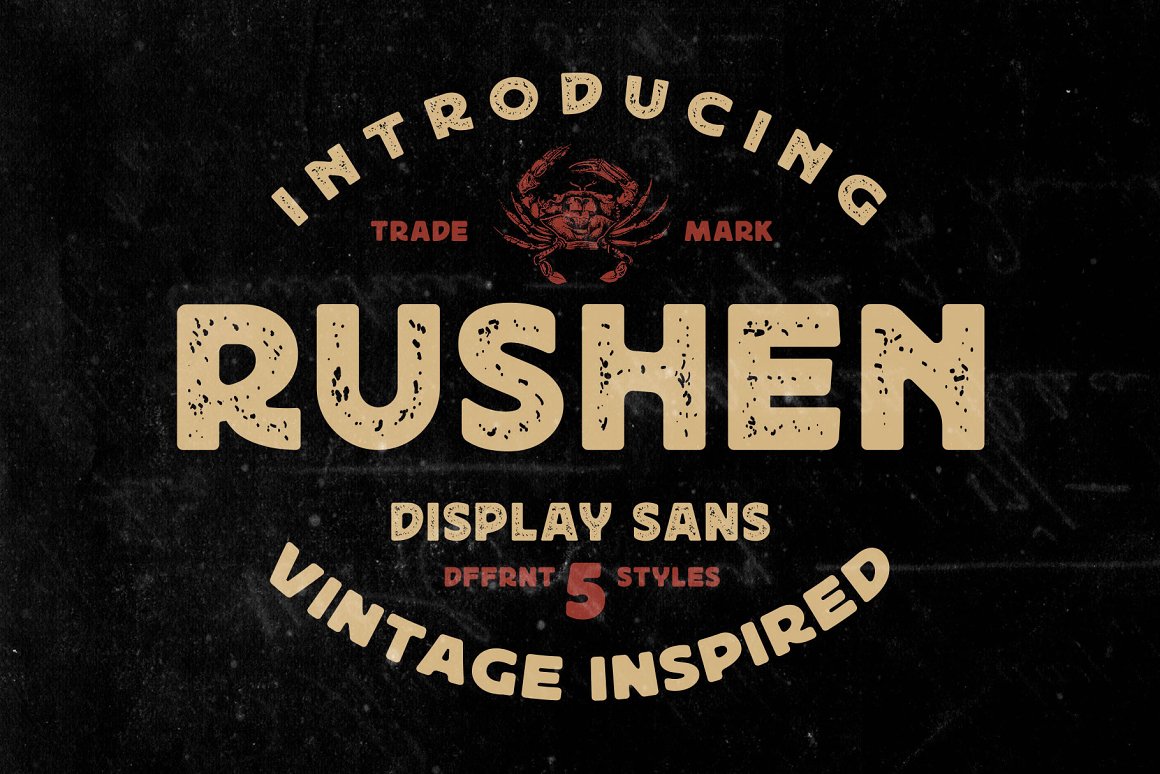
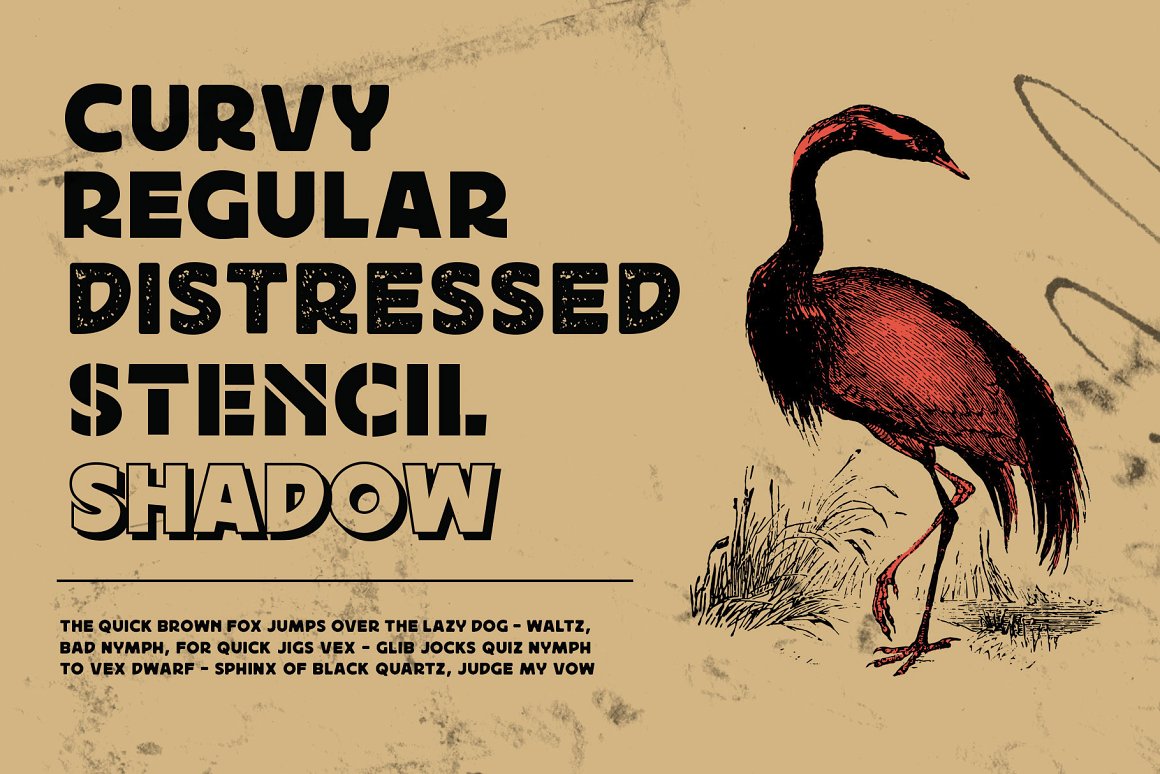
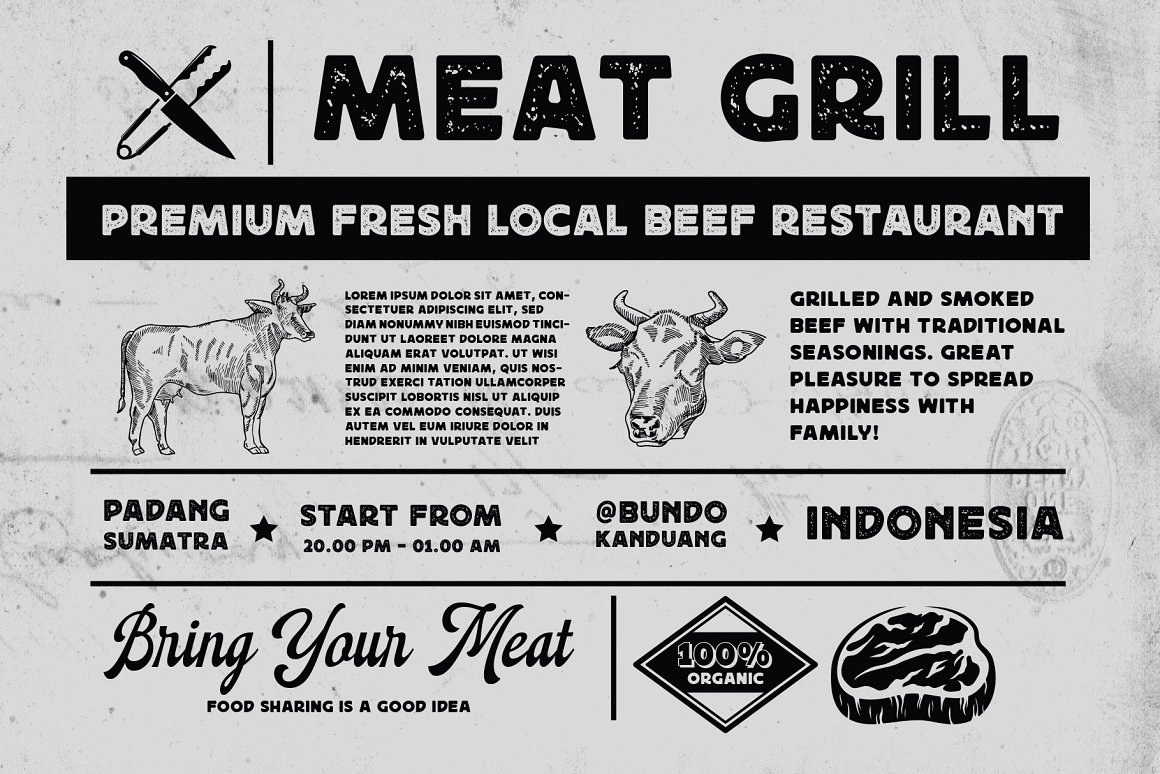
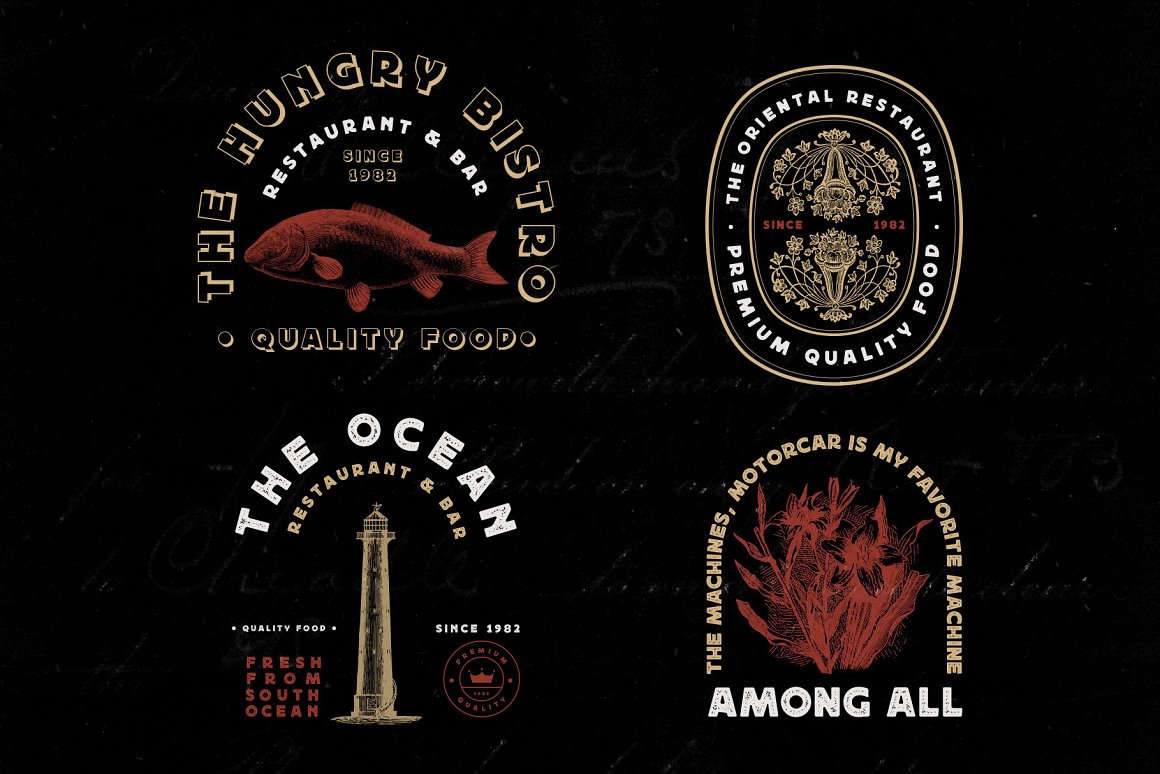
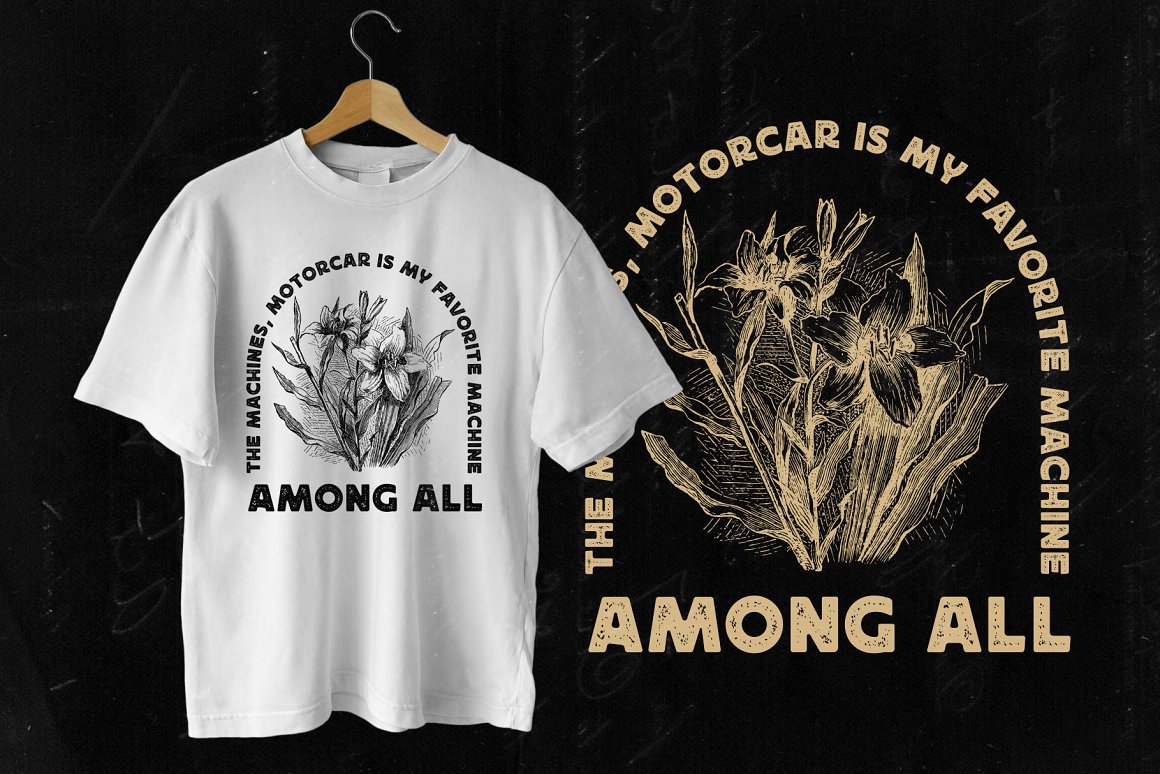
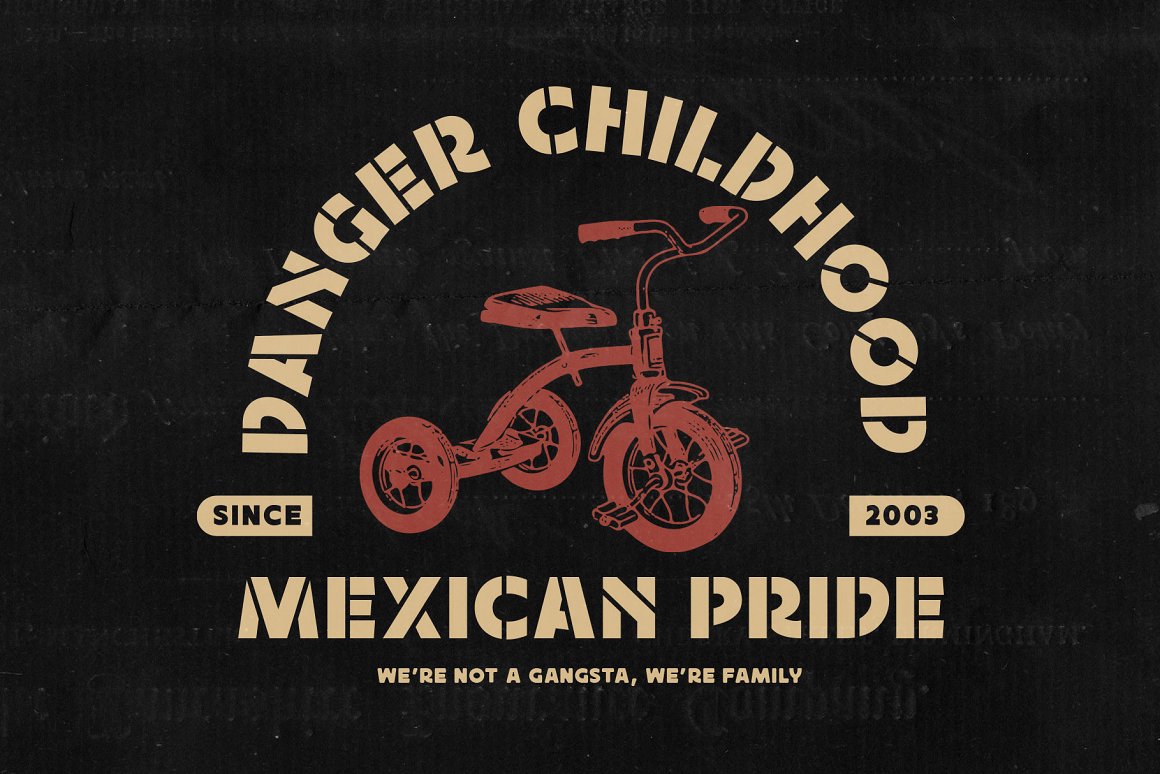
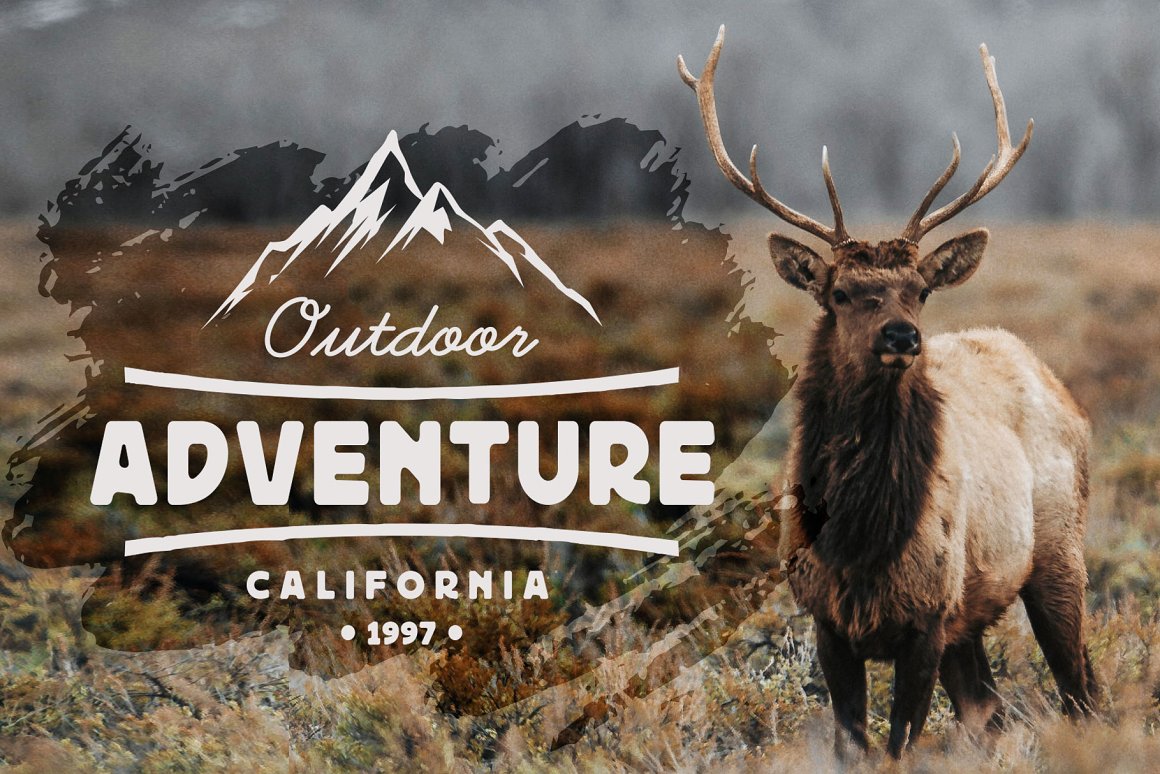
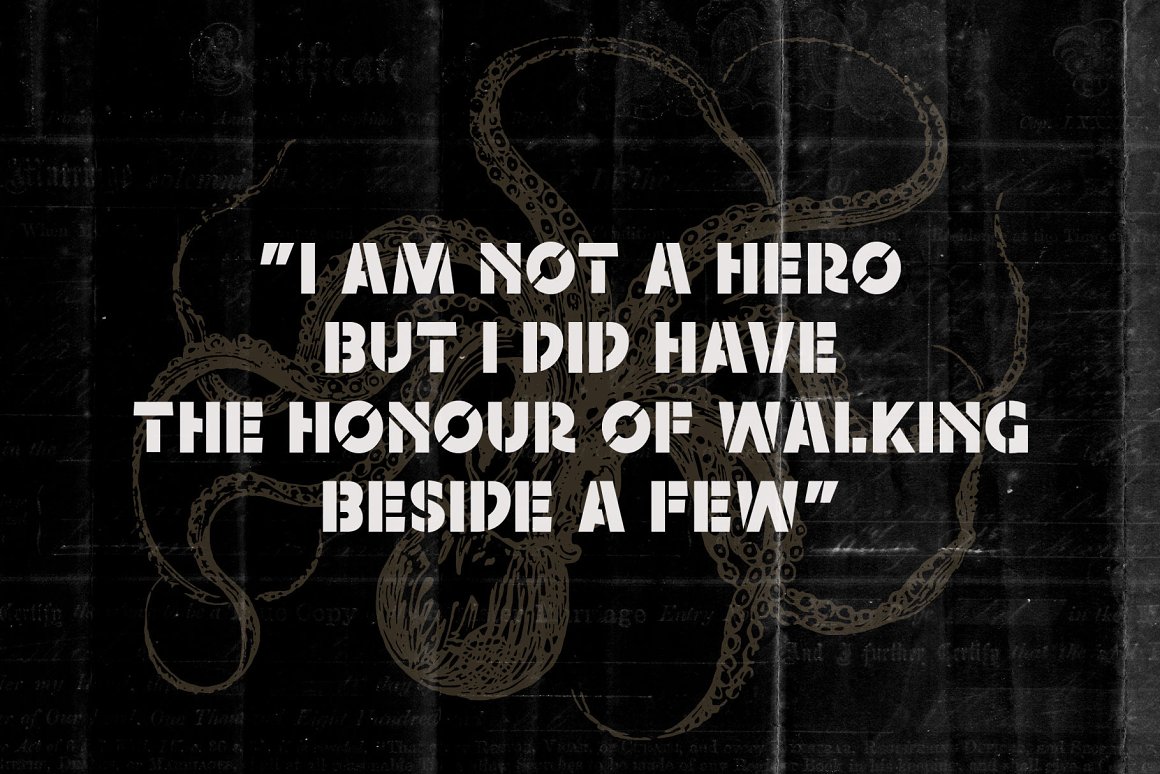
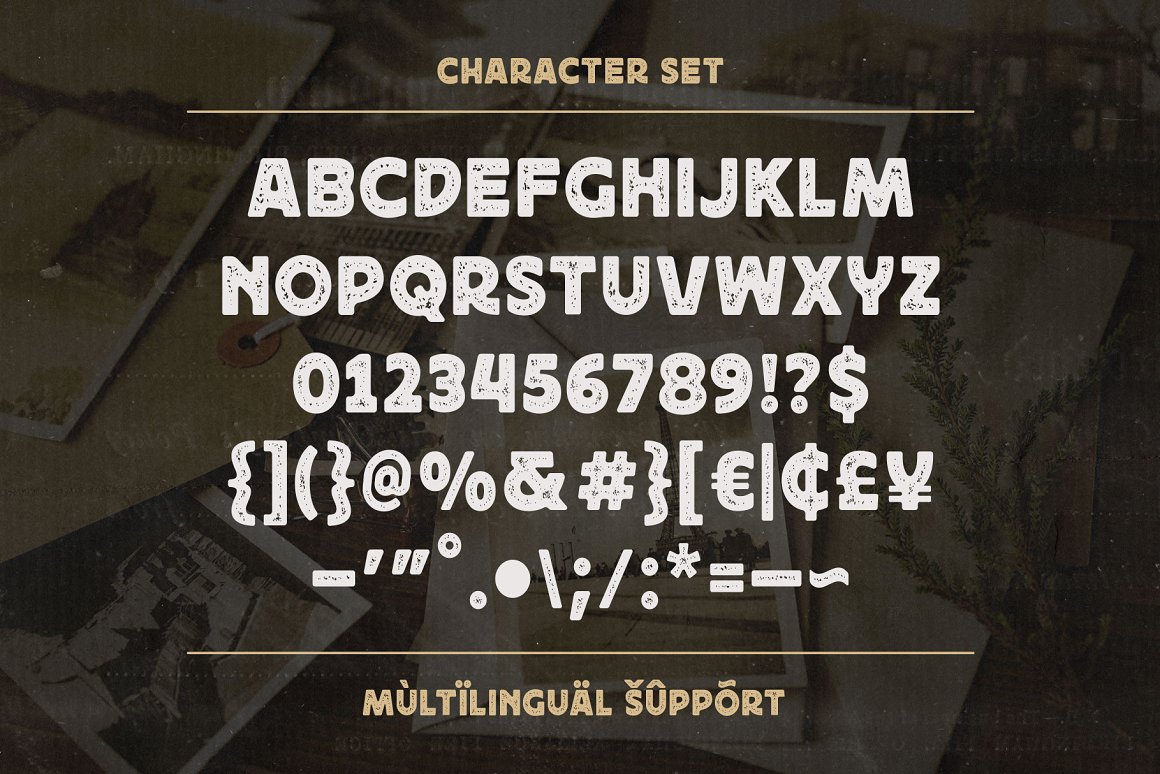
02. Naluka – Ethnic Font with Extras from Arterfak Project
Introducing our brand new ethnic font “Naluka“. Funny, joyful, and unique! The new exploration of the ancient-style font, inspired by the geometric tribal ornaments and wood texture applied to the font as the special effect to gives this font looks more fun and friendly!
Naluka is created especially for specific themes such as summer, holiday, tropical, ethnic, cartoon, beach, cultural, children, and many more! This font is suitable for displays, packed with extra illustrations and OpenType features that you can combine to express your concept!
- Stylistic alternates
- Stylistic set
- Custom ligatures
- Multilingual characters
- Dingbats font
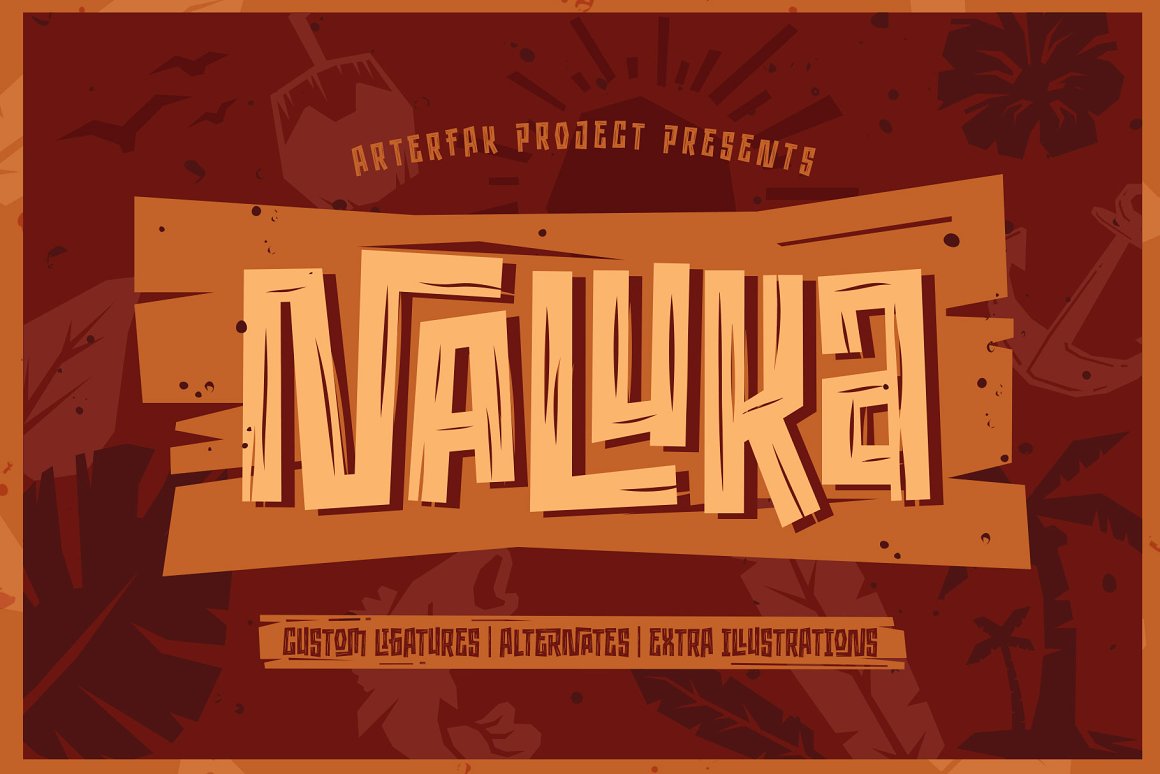
03. Warsuck – Hand Drawn Blackletter from Arterfak Project
ntroducing Warsuck, a hand-drawn font inspired by the underground culture, and a blackletter font. Warsuck emphasizes the usage of uppercase letters as the main display but still includes lowercase letters. Strong, vintage, and aesthetic blackletter with extra alternates characters.
This font is combining several styles in blackletter fonts such as Bastarda, Rotunda, and Old English to produce an experimental font. Great for displays, especially dark and vintage themes. You can use this font on t-shirts, tote bags, stickers, labels, logos, badges, banners, quotes, and short text.
04. Suzanstein – Horror Font from Arterfak Project
When horror and retro are combined in a more elegant composite, we present Suzanstein! Because darkness is not always about ghosts, death, and sadness. Suzanstein takes you to explore other possibilities.
This font is perfect for horror themes surely, but can also be used on themes of darkness, passion, youth, idealism, social issues, even motivation. Suzanstein is an all-caps font with small caps and comes with an OpenType feature to add variety to your designs.
You can apply Suzanstein for T-shirts, logos, posters, flyers, stickers, quotes, book covers, short editorial, and many more!
- Smallcaps
- Multilingual accents
- Stylistic alternates
- Ligatures
05. Albertson – Vintage Font from Arterfak Project
Albertson is strong retro font. Made with vintage references like an old school automotive, signage, cowboy, lumberjack, woodwork, and DIY handicraft. The modern western font that you can apply for your classic design such as the logo, logotype, label, packaging, signage, and more!
Albertson is an all-caps font with a strong design, equipped with 4 sets of alternates characters that you can mix and match to get the more solid typographic looks! Also complete with multilingual, packed in total 350+ glyphs.